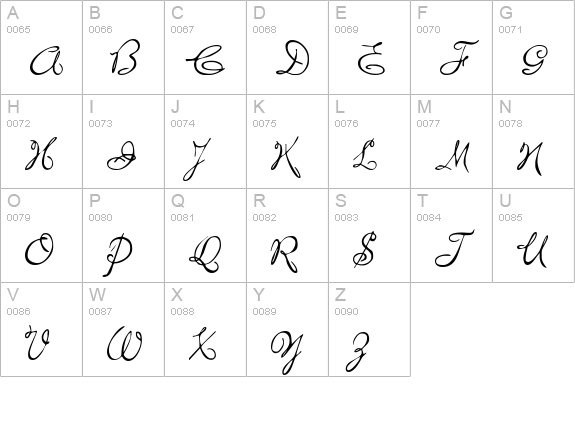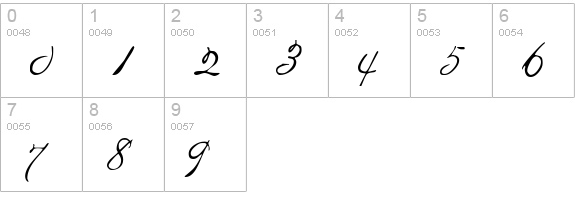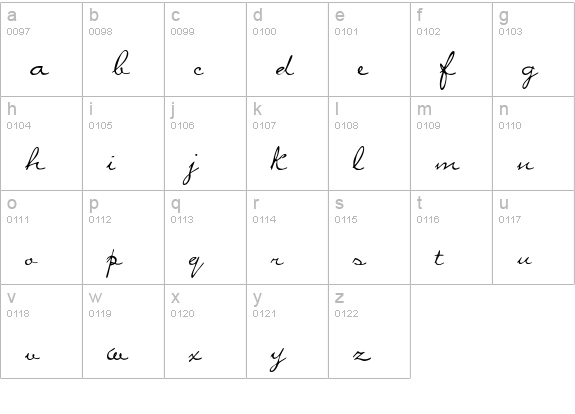
Penstyle Font Details
Penstyle font is a stunning and versatile typeface that exudes elegance and creativity. With its unique hand-drawn style, this font is perfect for adding a touch of charm and personality to any project. Whether you're designing a logo, creating a captivating poster, or crafting a beautiful invitation, Penstyle font will elevate your work to the next level. What sets Penstyle font apart is not only its exquisite design, but also the fact that it is available for free. Yes, you read that right - this remarkable font can be downloaded at no cost at FontsMarket.com. Now you can bring your artistic vision to life without breaking the bank. With its smooth, flowing lines and carefully crafted curves, Penstyle font captures the essence of handwriting, giving your text a natural and organic feel. This font is perfect for adding a personal touch to your designs, whether you're creating a heartfelt message or a playful headline. The versatility of Penstyle font knows no bounds. Its wide range of weights and styles allows you to experiment with different looks and create captivating designs that stand out from the crowd. From thin and delicate strokes to bold and impactful lines, this font offers endless possibilities for your creative projects. Penstyle font is not only visually stunning, but also highly legible, ensuring that your message is conveyed clearly and effectively. Its clean and well-defined letterforms make it a great choice for both print and digital media, guaranteeing that your text will be easily readable in any context. So why wait? Download Penstyle font for free at FontsMarket.com and unlock the creative potential of your designs. Whether you're a professional designer or a creative enthusiast, this font is sure to become a valuable addition to your typography collection. So go ahead, unleash your creativity and let Penstyle font bring your designs to life.